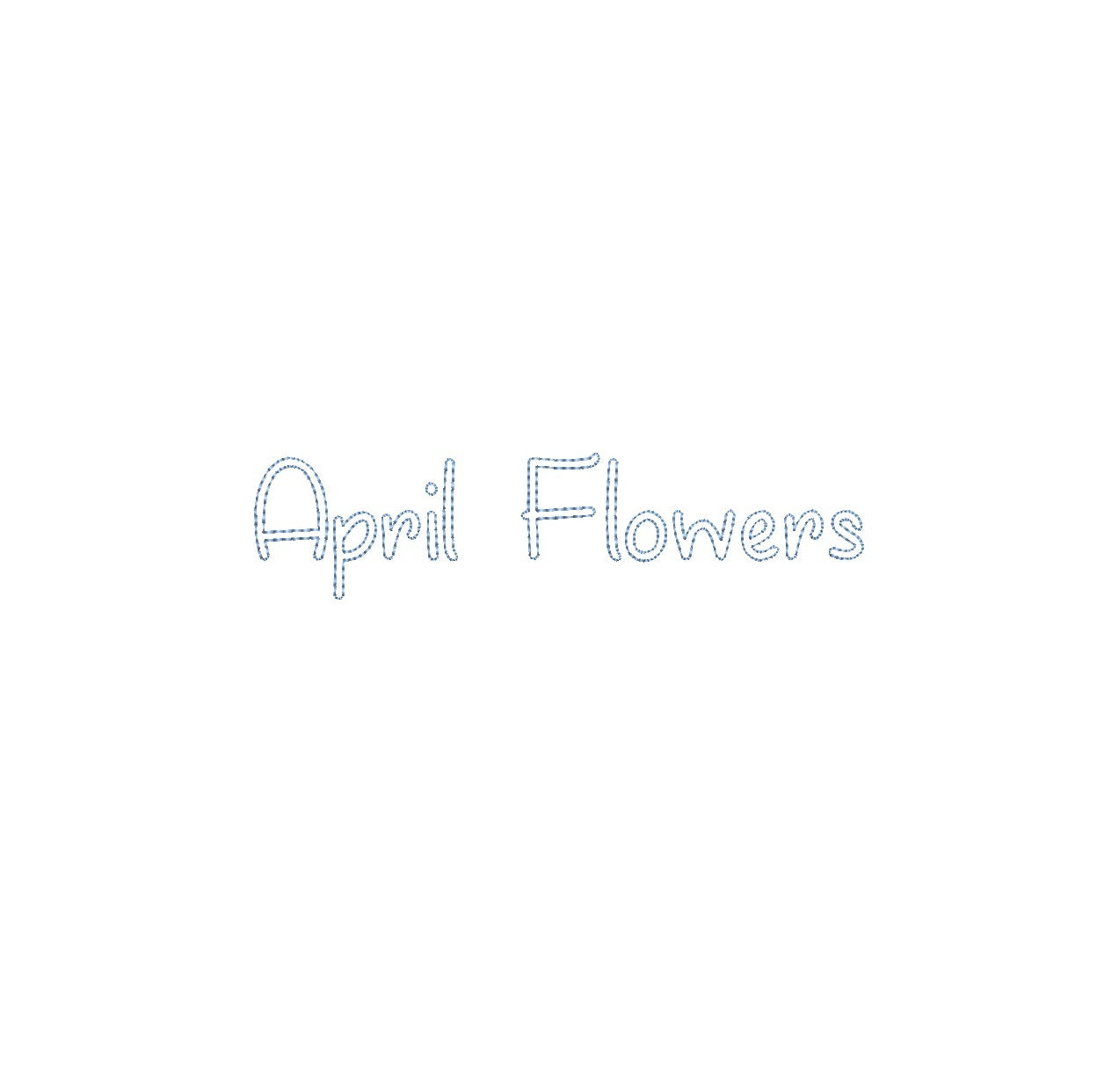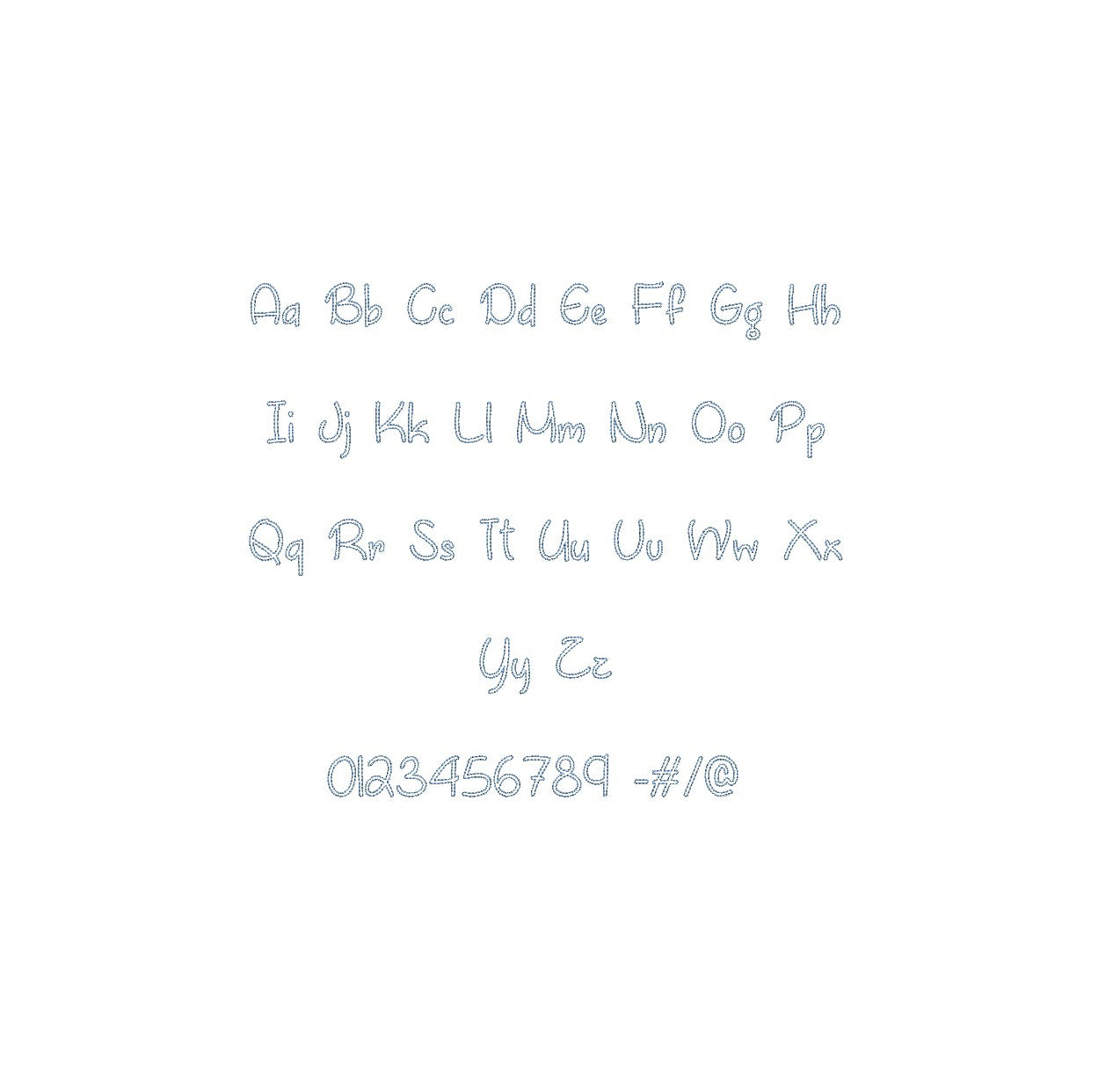
Elevate your embroidery projects with the April Flowers Bean Stitch Outline ESA font. Crafted for compatibility with Wilcom Studio e4.5.6 and Hatch 3 versions and up, this font offers a seamless design experience. The delicate bean outline adds a charming dimension to your creations, while the ESA format ensures precision and ease during digitization. Transform your ordinary designs into extraordinary works of art using the April Flowers Bean Stitch Outline ESA font. Unleash your creativity and bloom with inspiration today.